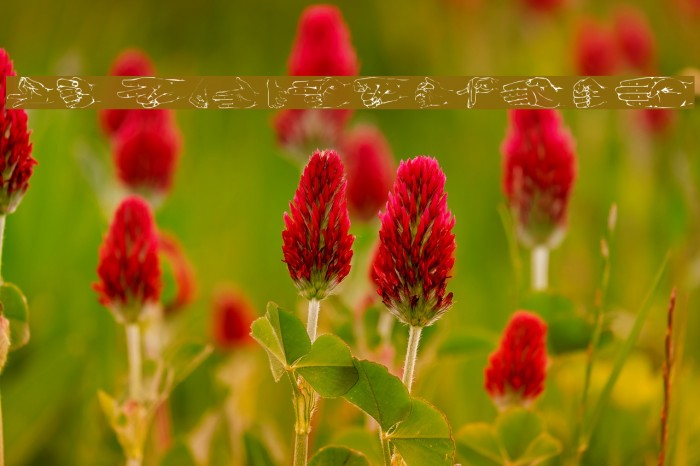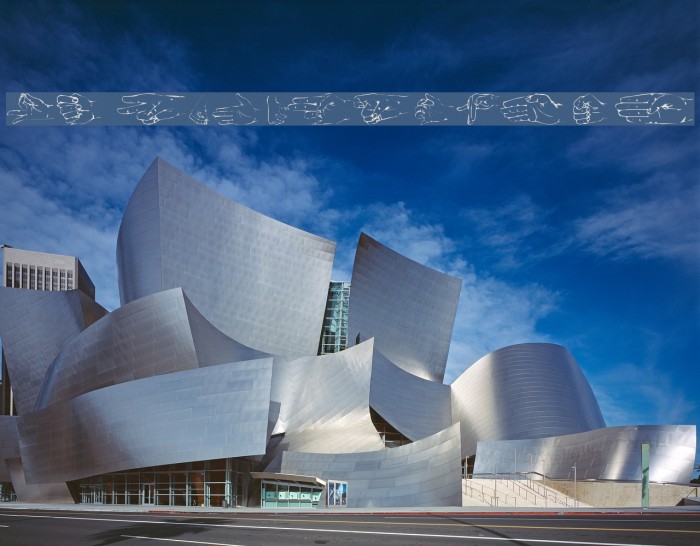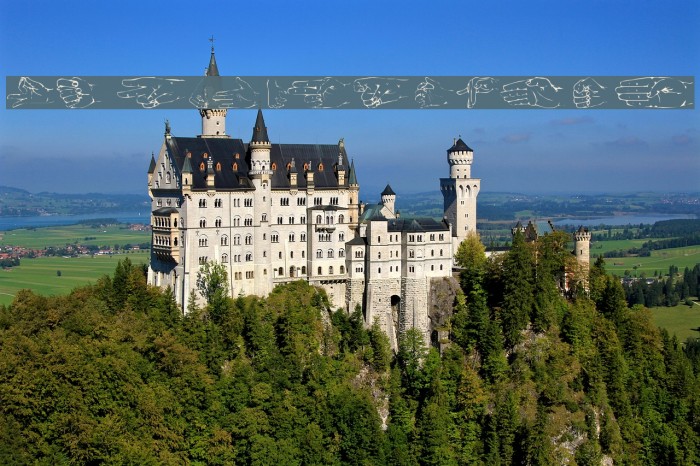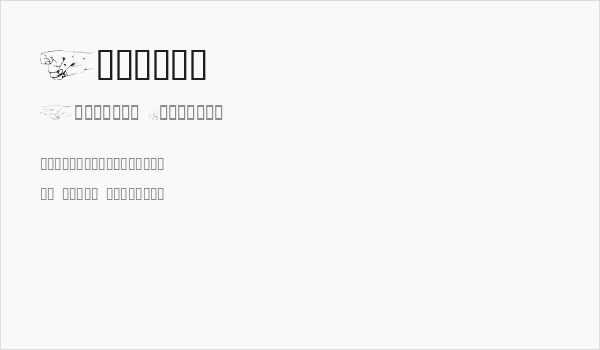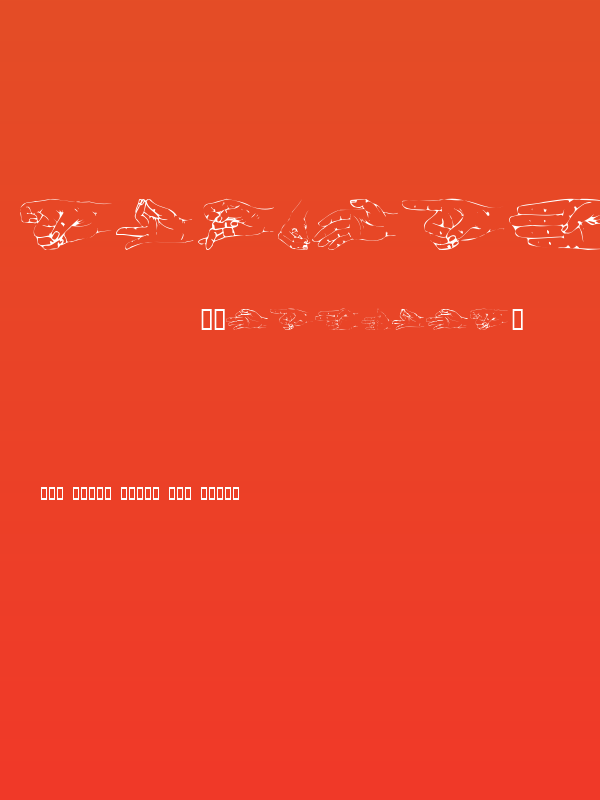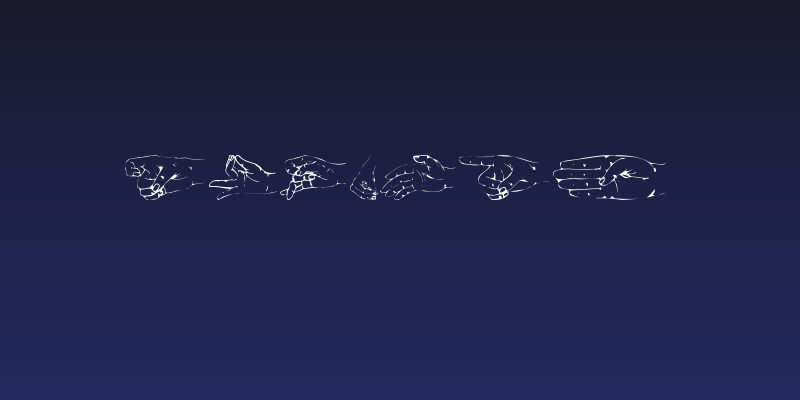
Handsom Font
✎ Modern
| Категория | Modern |
| Общий стиль | Artistic |
| Область применения | Logos, Educational materials, Artistic projects |
| Рекомендуемые проекты | Ideal for educational materials on sign language, artistic posters, and creative branding projects. |